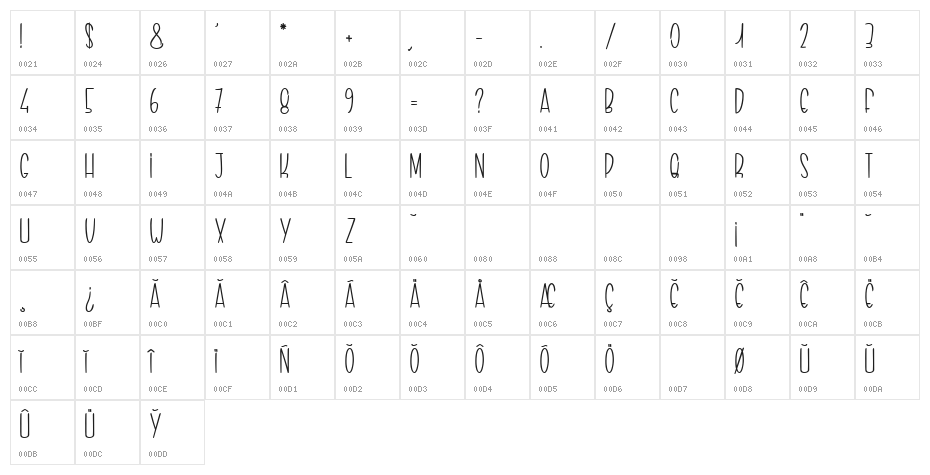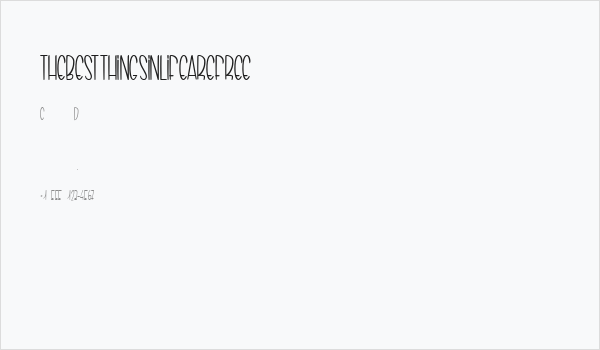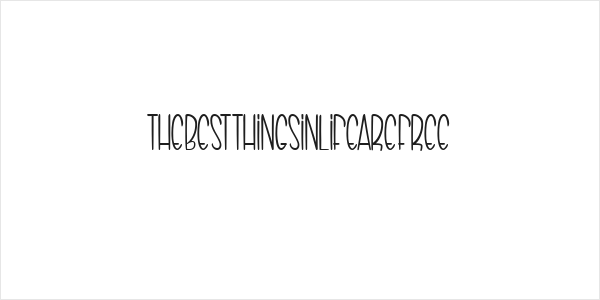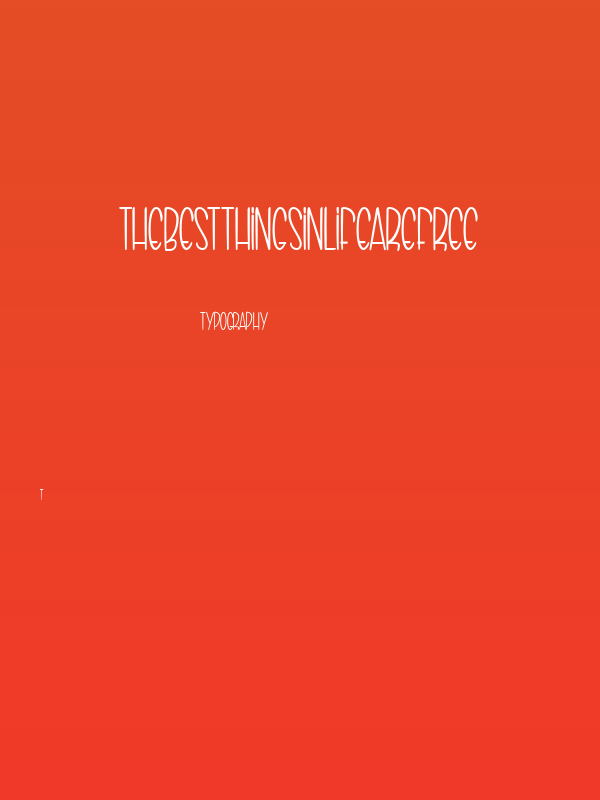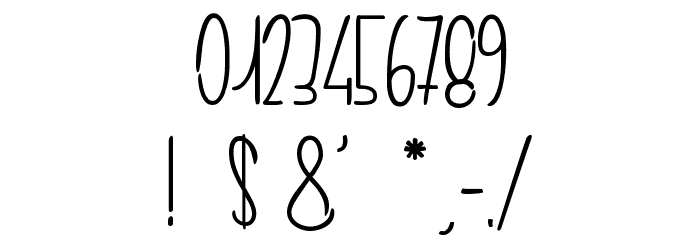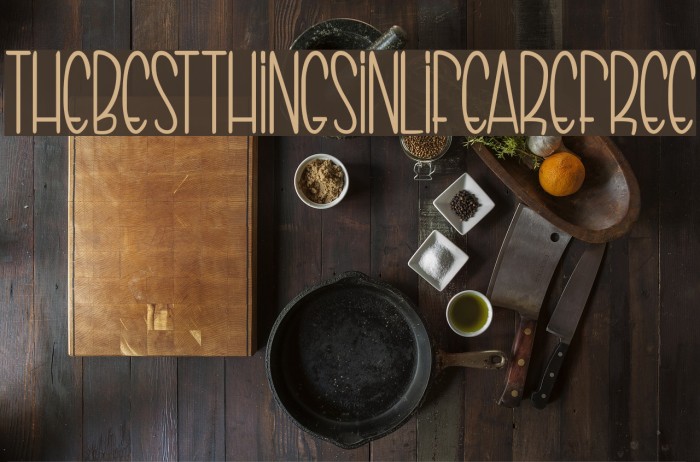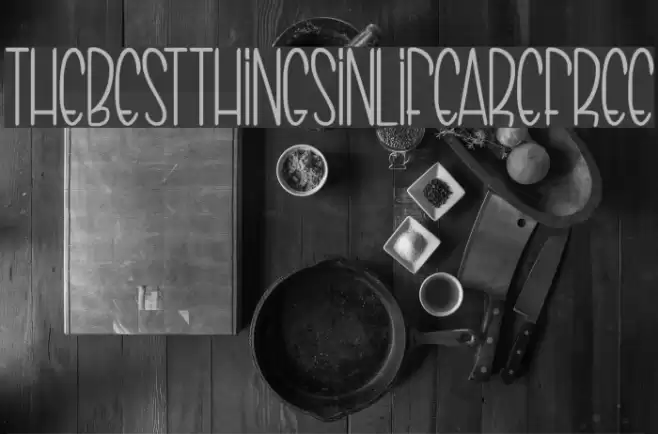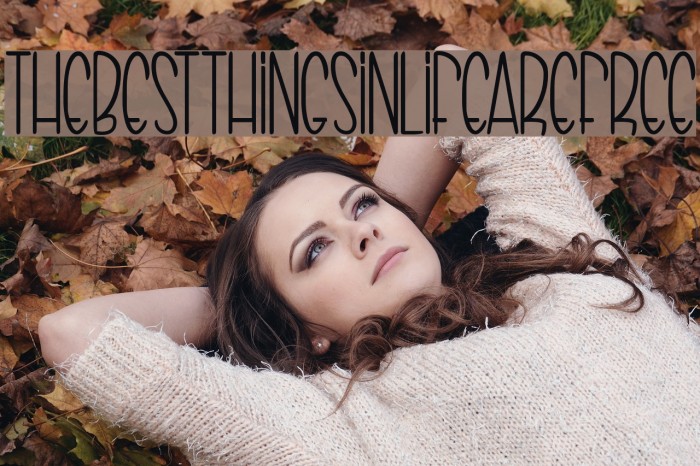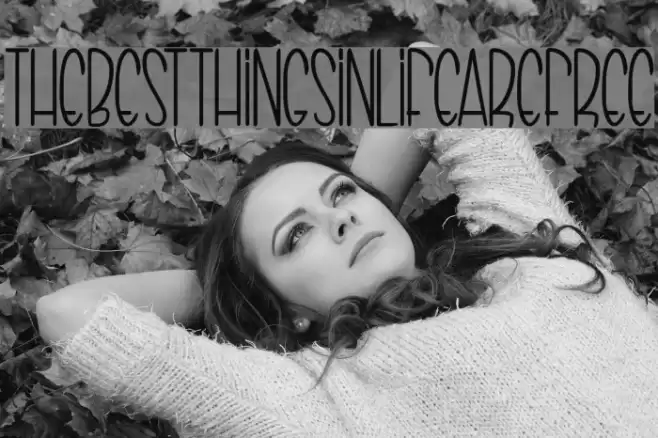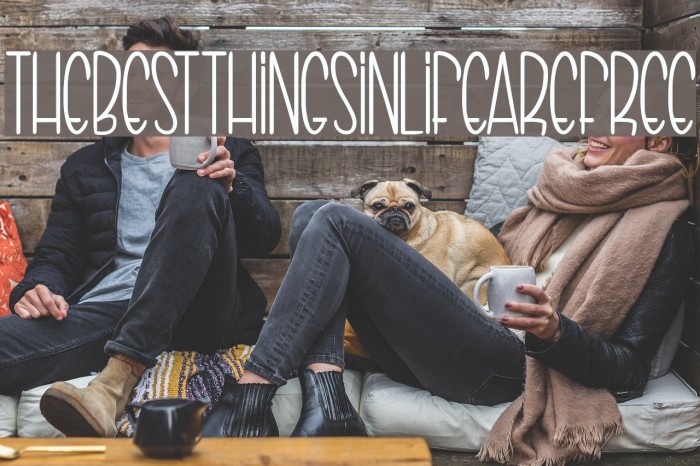
THEBESTTHINGSINLIFEAREFREE Font
THEBESTTHINGSINLIFEAREFREE Description
This font features a playful and whimsical design with tall, narrow characters that have a hand-drawn appearance. The letters are slightly irregular, adding a casual and friendly feel. The strokes are consistent in width, giving it a uniform look despite its quirky style. The font includes both uppercase and lowercase letters, numerals, and a selection of special characters. Its unique style makes it stand out, perfect for projects that require a touch of personality and creativity.
| Width | Condensed |
| Overall Style | Playful |
| Proposed Projects | Ideal for children's books, greeting cards, playful branding, and creative posters. |